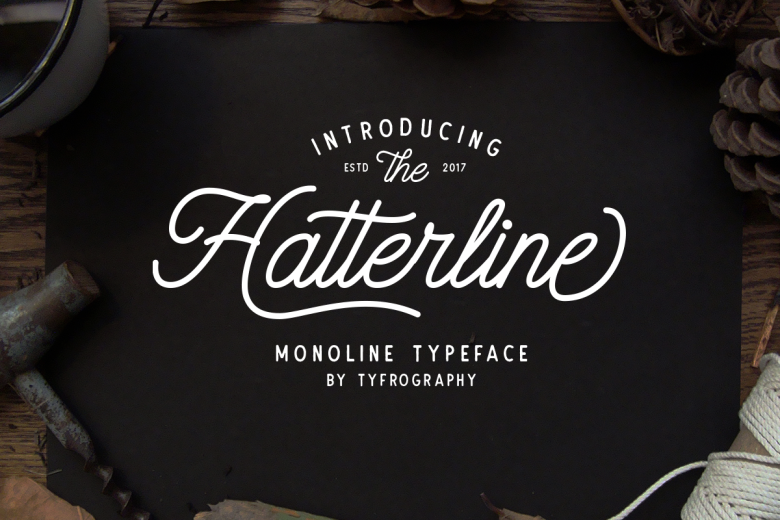
Hatterline Script + Sans Font
I am very happy to introduce the best font to you. It’s a perfect typography. Introducing Hatterline Script + Sans Font! Hatterline designed by Tyfrography, this is a premium font, are sold on Font Bundles, but it was great, it is free today for download. Hatterline script. These two lovely fonts would be perfect to combine in your design. with vintage style. The fonts are great for product logo,wedding card logo, clothing brand logo,Vintage design and much more. This font contain 350+ glyphs with bonus Dodger sans.